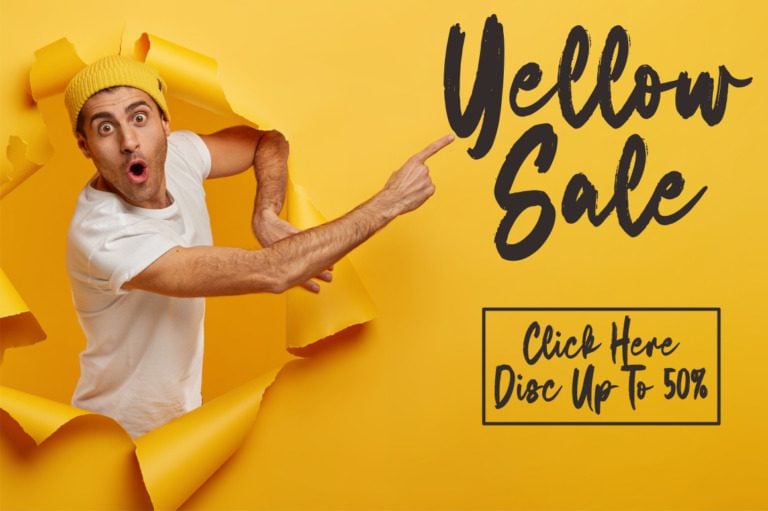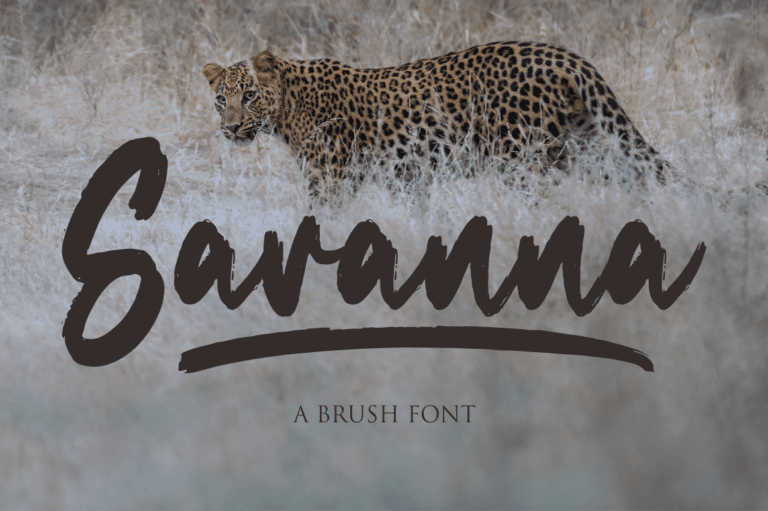
Savanna Font
Savanna Font is a bold and expressive typeface with a rugged and adventurous feel. Its strong, geometric letterforms and wide spacing create a sense of power and energy. Inspired by the vast and untamed African savanna, this font is perfect for projects that require a sense of adventure and exploration. It’s ideal for branding outdoor gear, adventure travel, and wildlife conservation.